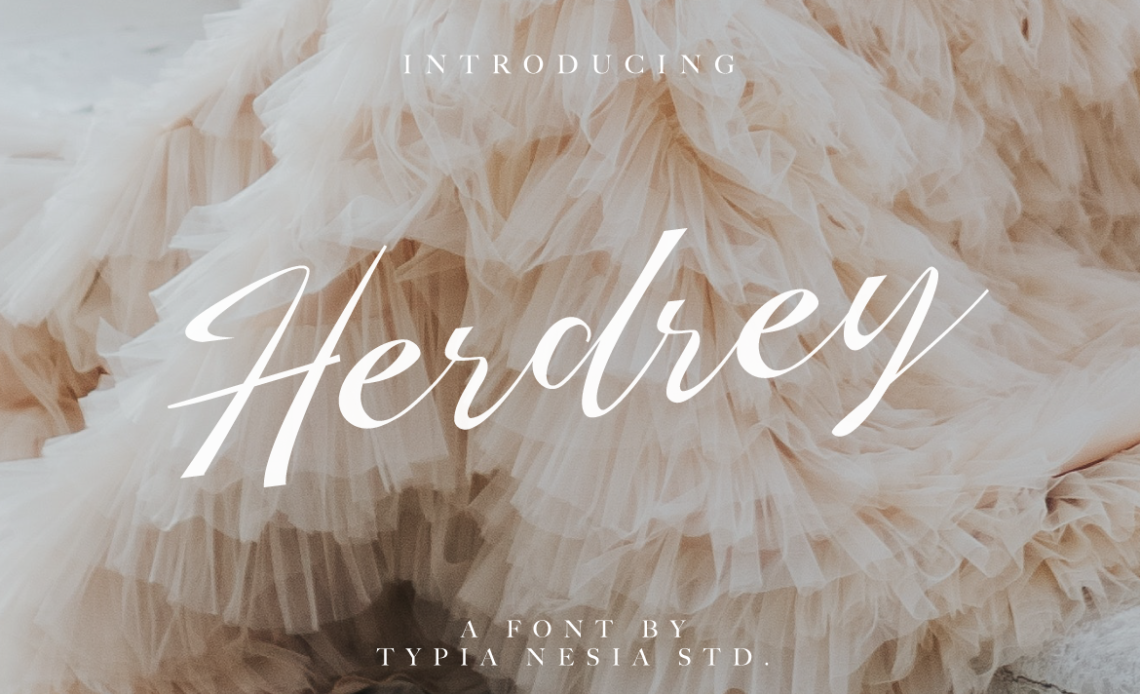
Introducing Herdrey Font, an elegant and modern calligraphy script designed to evoke timeless beauty and charm. Indulge in the allure of this font, meticulously crafted to embody the essence of sophistication and grace, perfect for those seeking a refined touch in their creative endeavors.
With its sweeping strokes and captivating flourishes, Herdrey Font effortlessly adds a touch of elegance to every design. Whether you're a seasoned designer or just starting out, this font is a must-have for anyone looking to create visually stunning designs that exude an aura of sophistication.
Step into a world of creative possibilities with Herdrey Font. Its versatility knows no bounds, allowing you to effortlessly craft captivating logos, eye-catching invitations, heartfelt greeting cards, and immersive social media posts. Let your imagination soar and watch as your designs come to life with a touch of Herdrey's magic.
Indulge in the splendor of Herdrey Font and unlock a new realm of creativity. Its unique character and timeless appeal will transform your designs into masterpieces, leaving a lasting impression on your audience. Make a statement, be remembered, and experience the Herdrey difference today!